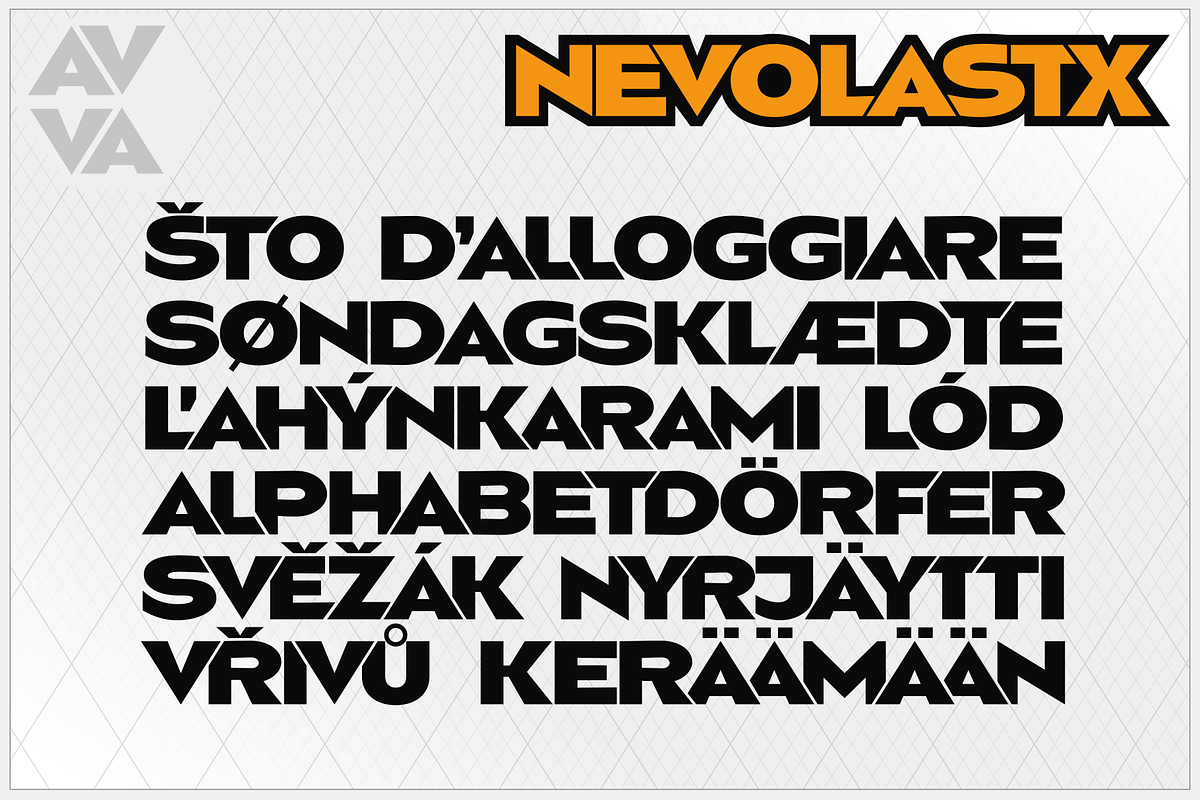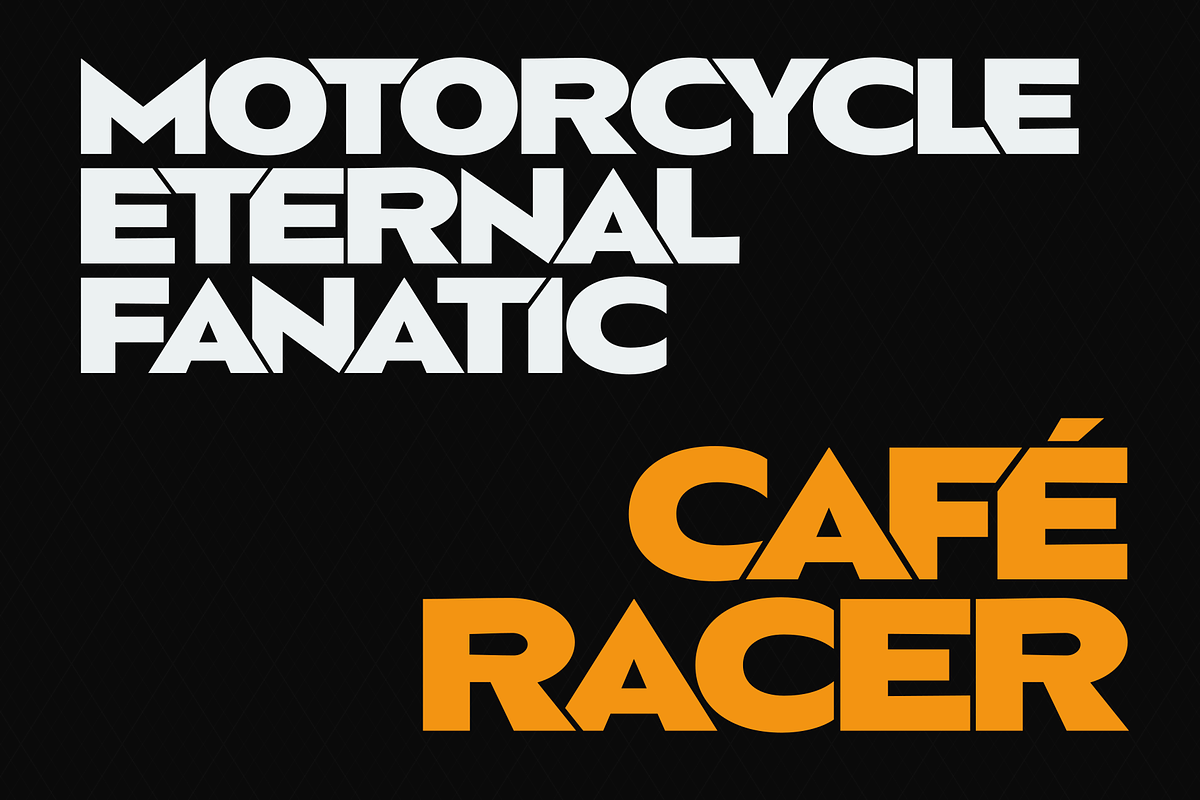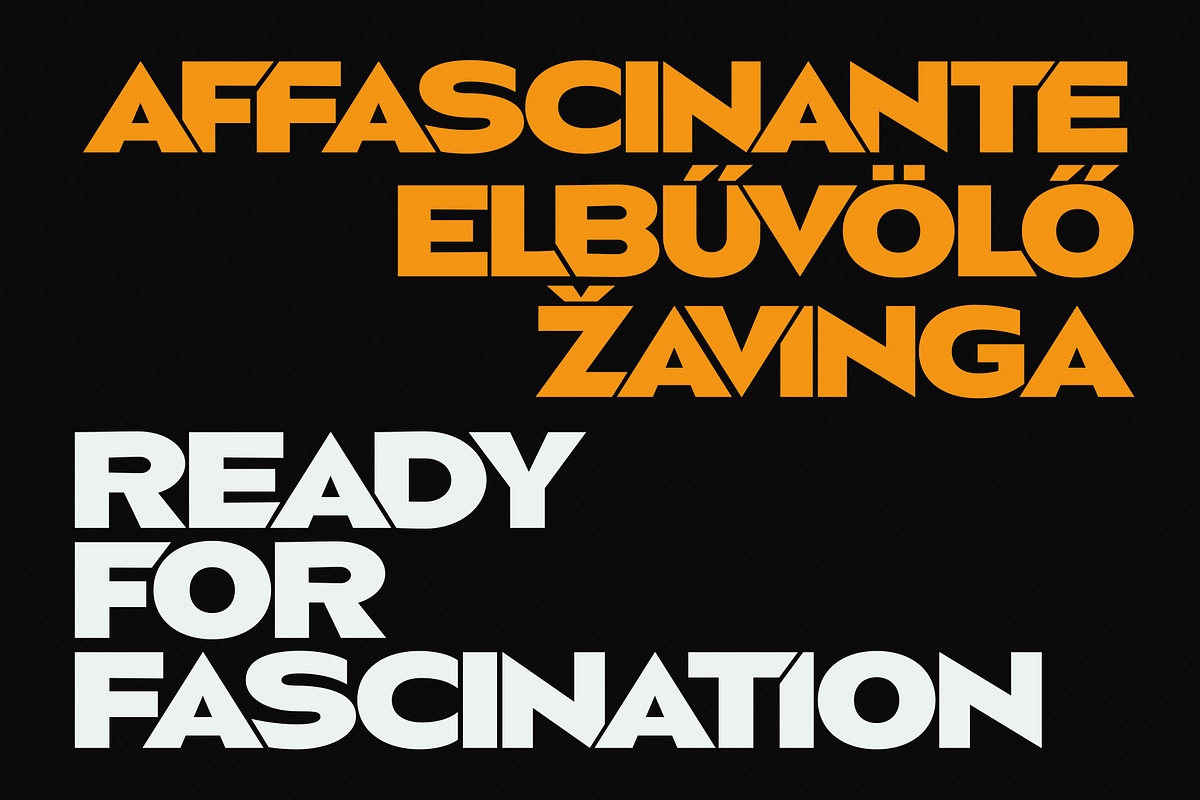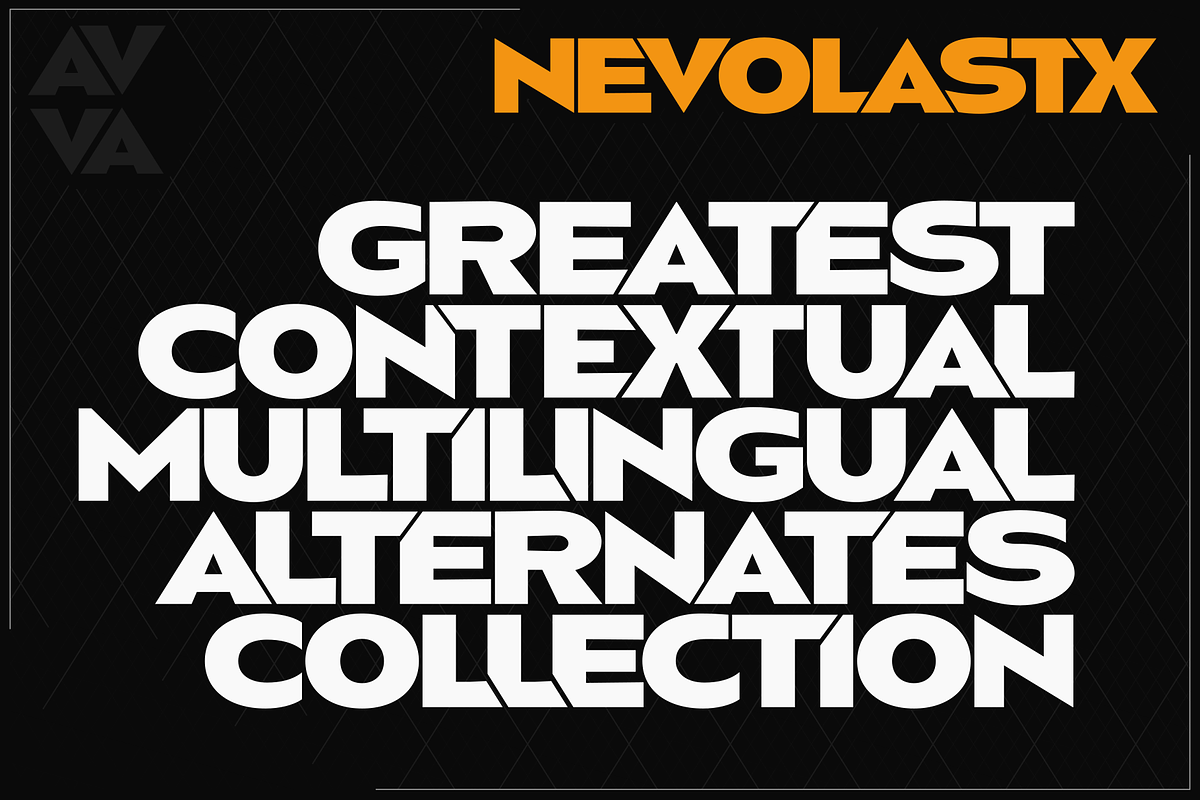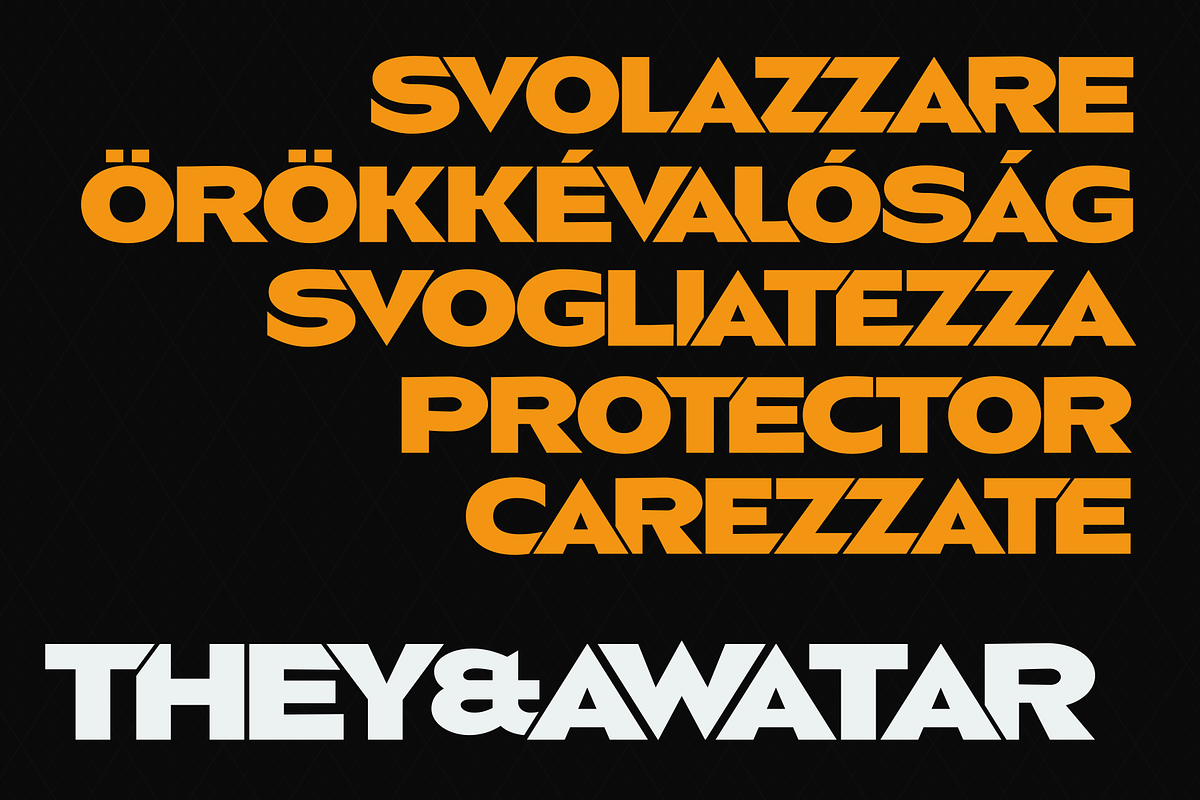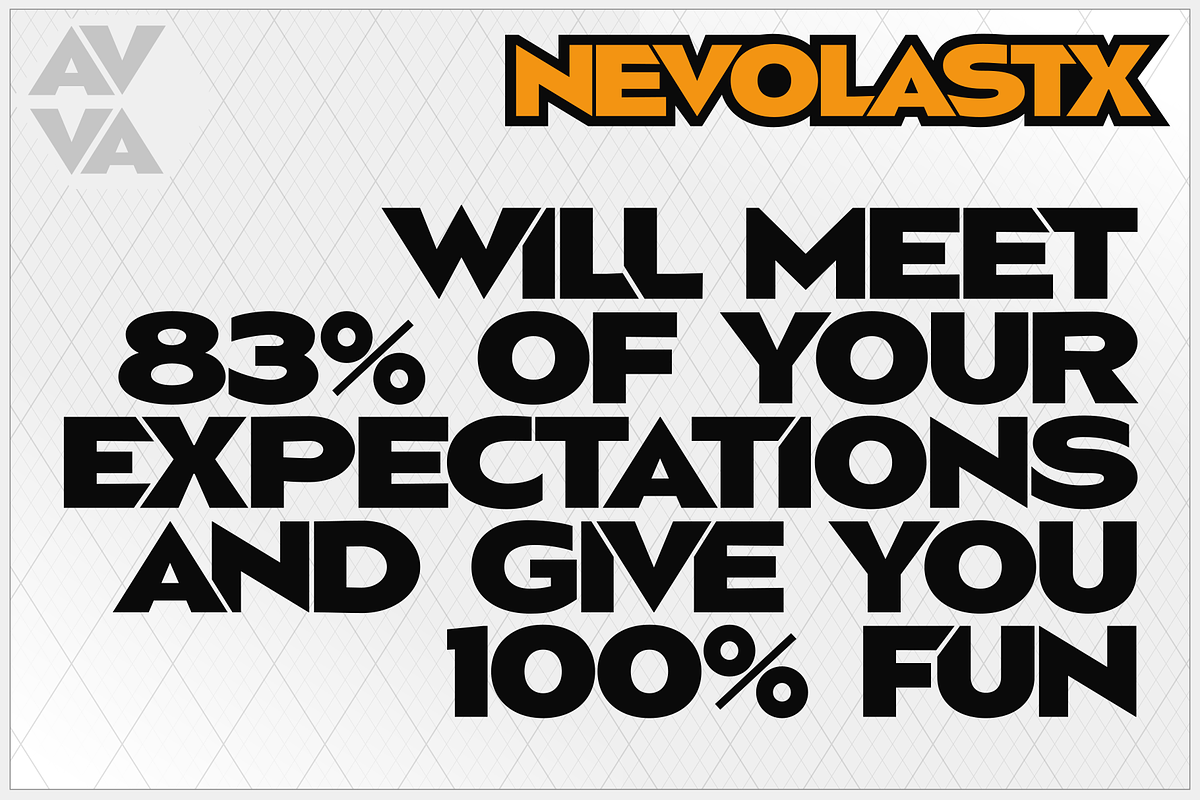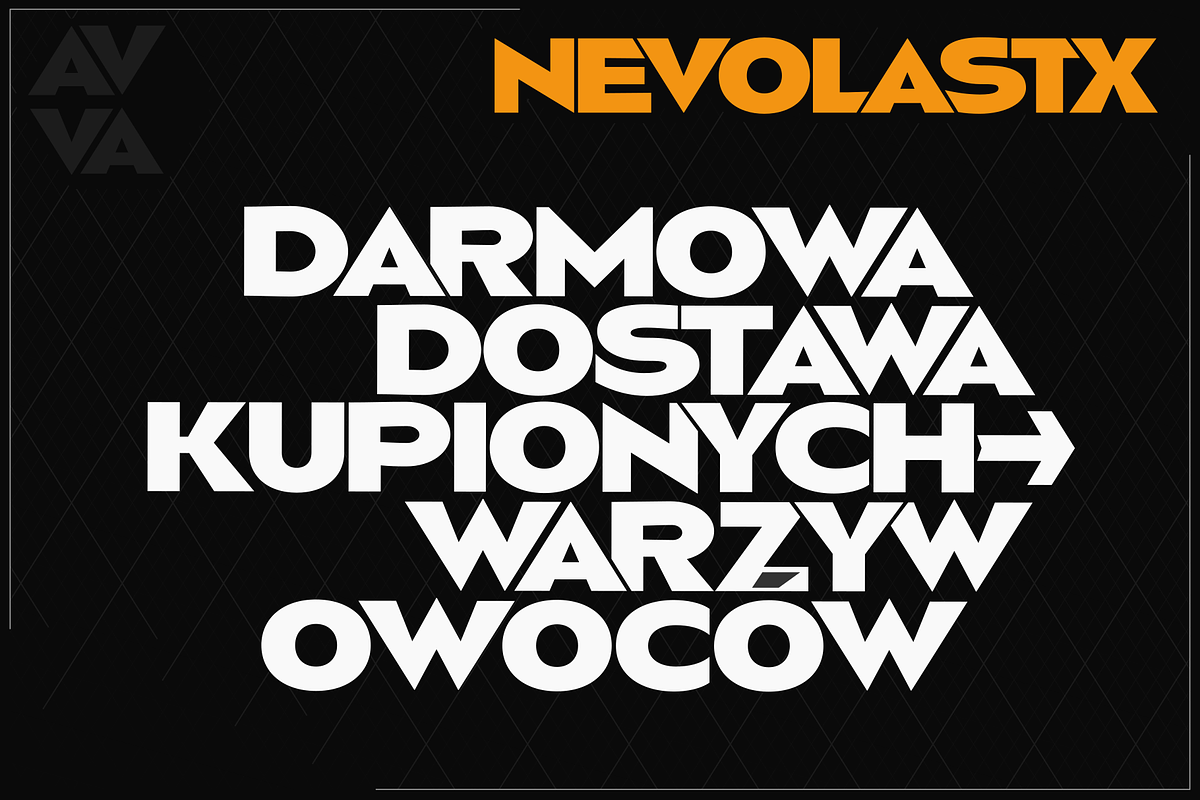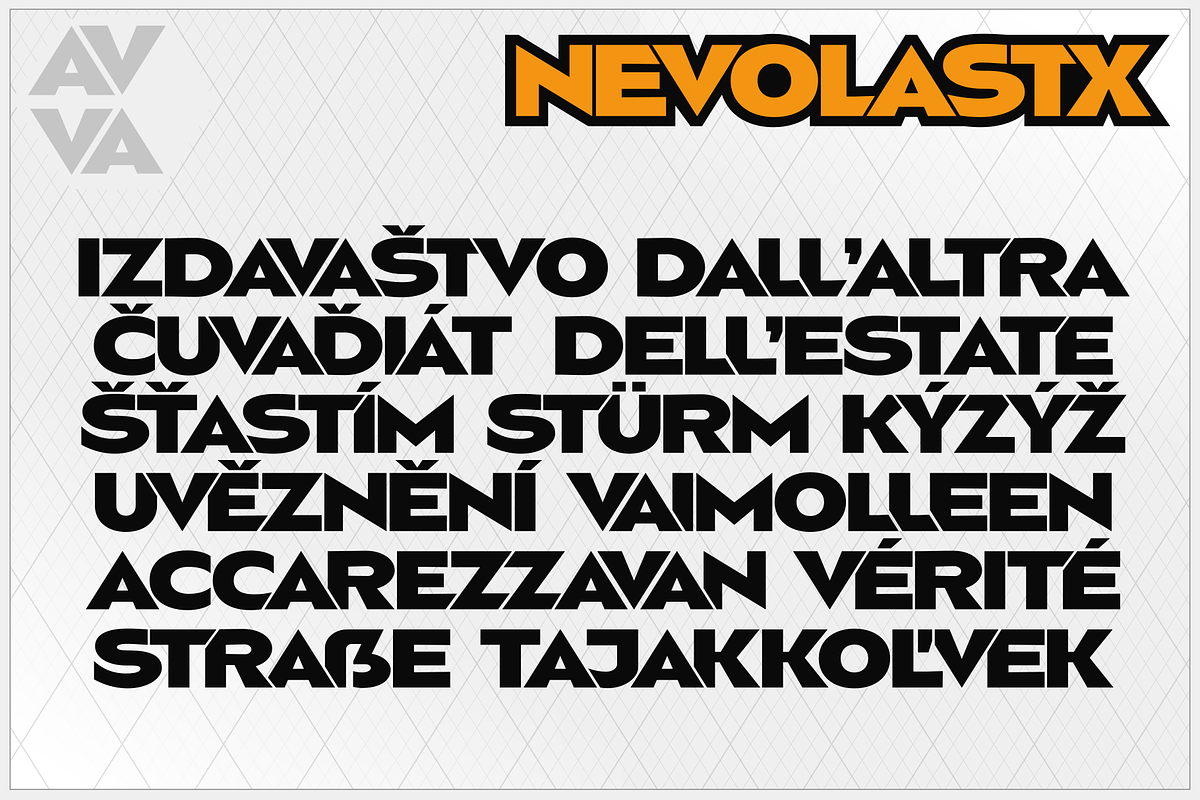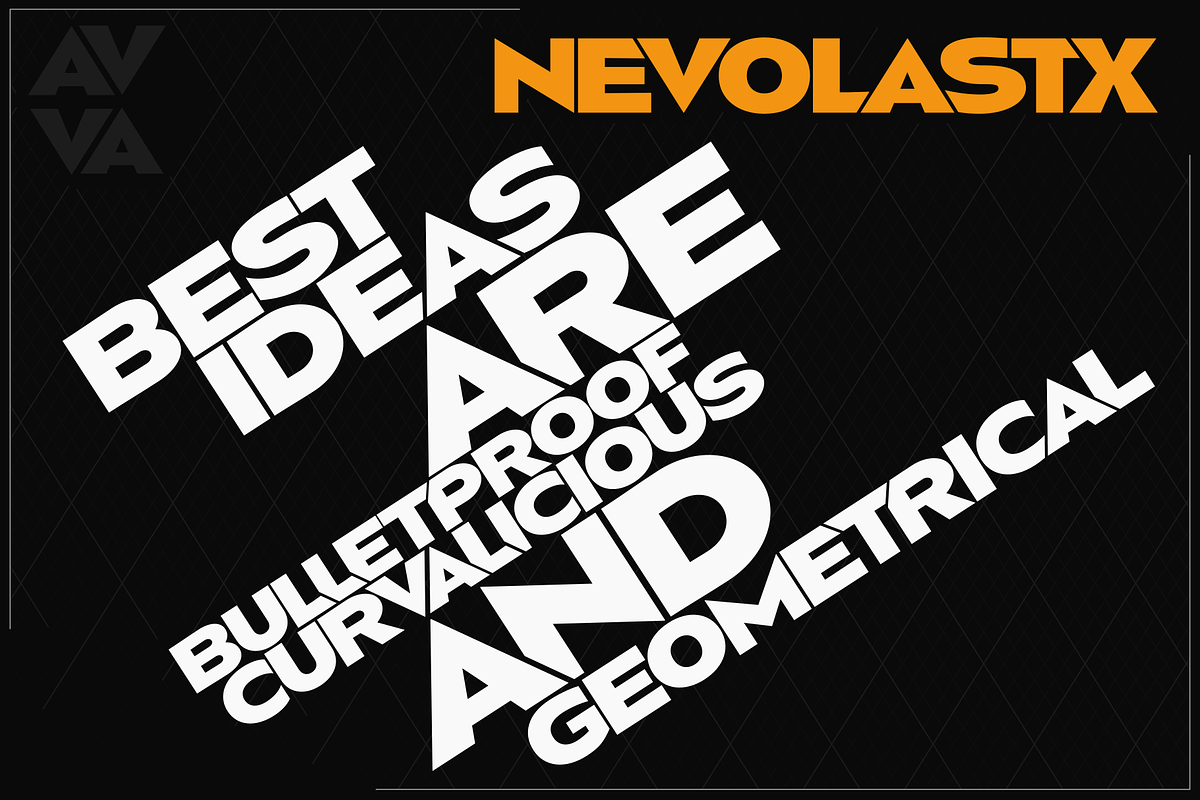
Nevolastx
Unique poster typeface with multilingual, contextual alternates. Perfect for loud message. With over 1000 alternate glyphs, this font has extensive Latin language support for Western, Central, and Eastern European and gives text a unique, elegant and modern feel.